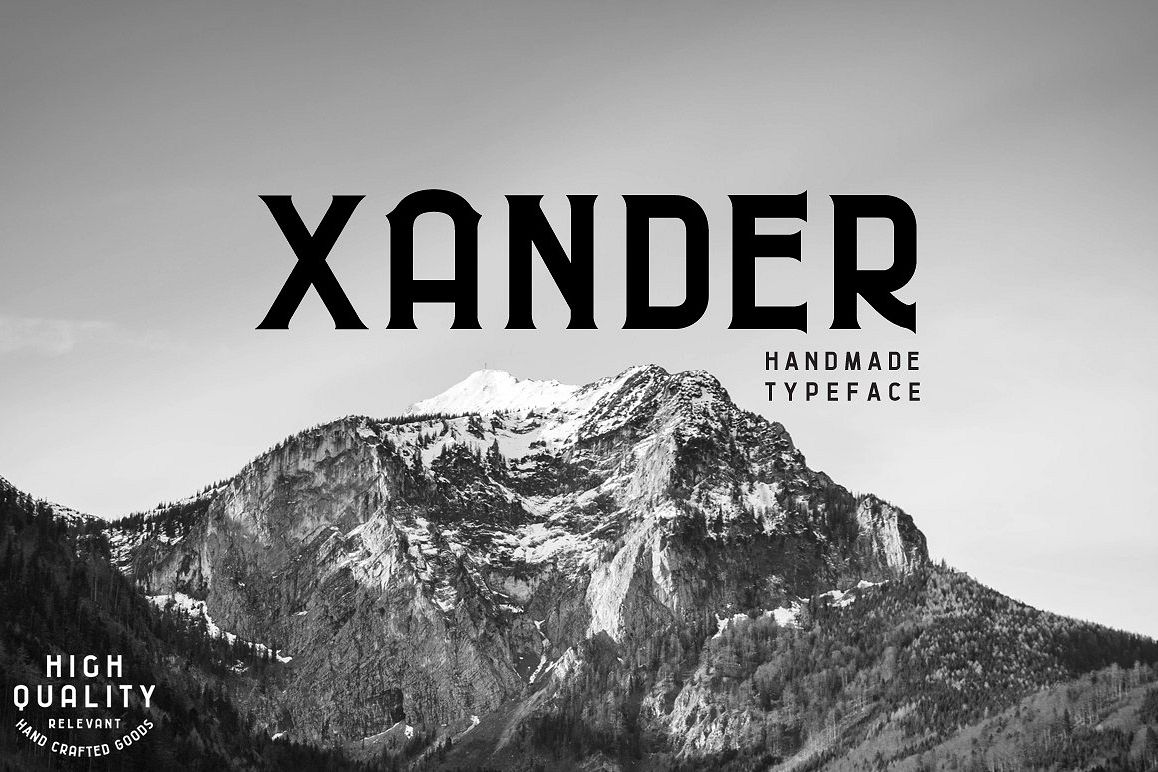
Xander
Presenting the first typeface from The 1871 Project! Xander is a typeface inspired by a time when people cared about craft and creating things with their hands. It boasts a solid Sans & Serif version each with its own unique styles. You can use all of the alternate letters just by pressing caps or holding shift. It comes stock with 2 different ampersands to handle all of your and needs. Use it for all of your type based designs! (posters, logos, branding, print, wordmarks, etc.)Get it now for 20% off!If you have any questions please let me know!